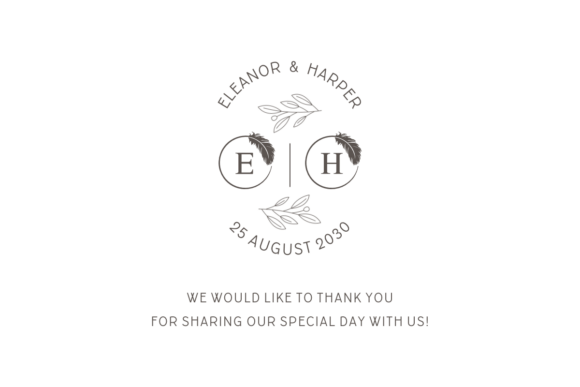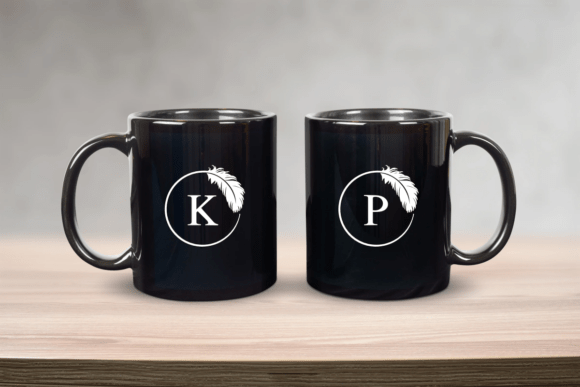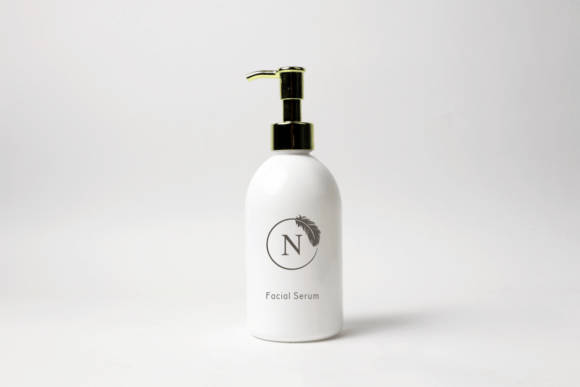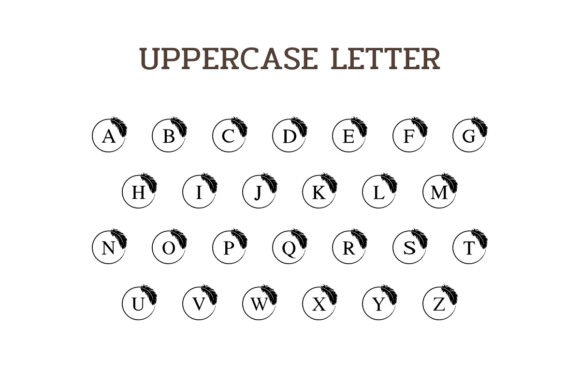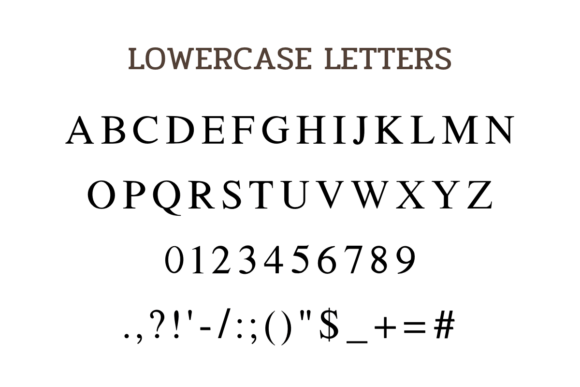
The Magic of Feather Monogram Font: A Designer’s Delight
I still remember the day I stumbled upon the Feather Monogram Font while working on a custom greeting card project. I had a clear vision of what I wanted to create, but the right font was elusive. That’s when I discovered Feather Monogram, and it instantly became the perfect fit. Its elegant, decorative style added a touch of sophistication to my design, and I knew right then that I had to share it with fellow designers and crafty enthusiasts.
- ✨ Elegant and sophisticated design that’s perfect for special occasions
- ✅ Highly versatile and can be used for various design projects, from notes and diaries to banners and social media posts
- 💫 Beautifully crafted monogram letters that add a personal touch to any design
- 🎨 Great for creating visually appealing content that stands out
While Feather Monogram Font is an amazing addition to any design project, there are a few things to keep in mind:
- 🤔 The font might be a bit too ornate for very casual or simple designs
- ⚠️ Some users might find the font a tad challenging to read in large blocks of text
The Story Behind Feather Monogram Font
Feather Monogram Font was inspired by the delicate beauty of feathers and the elegance of monogrammed designs. The creator, a passionate typographer, aimed to craft a font that would add a touch of sophistication and whimsy to any design project. With its intricate details and beautiful lettering, Feather Monogram Font has become a favorite among designers and crafty enthusiasts alike.
| Font Name | Feather Monogram Font |
| Author | Nun Sukhwan |
| What type of projects is Feather Monogram Font best suited for? | Feather Monogram Font is perfect for various design projects, including greeting cards, notes, diaries, banners, social media posts, and more. |